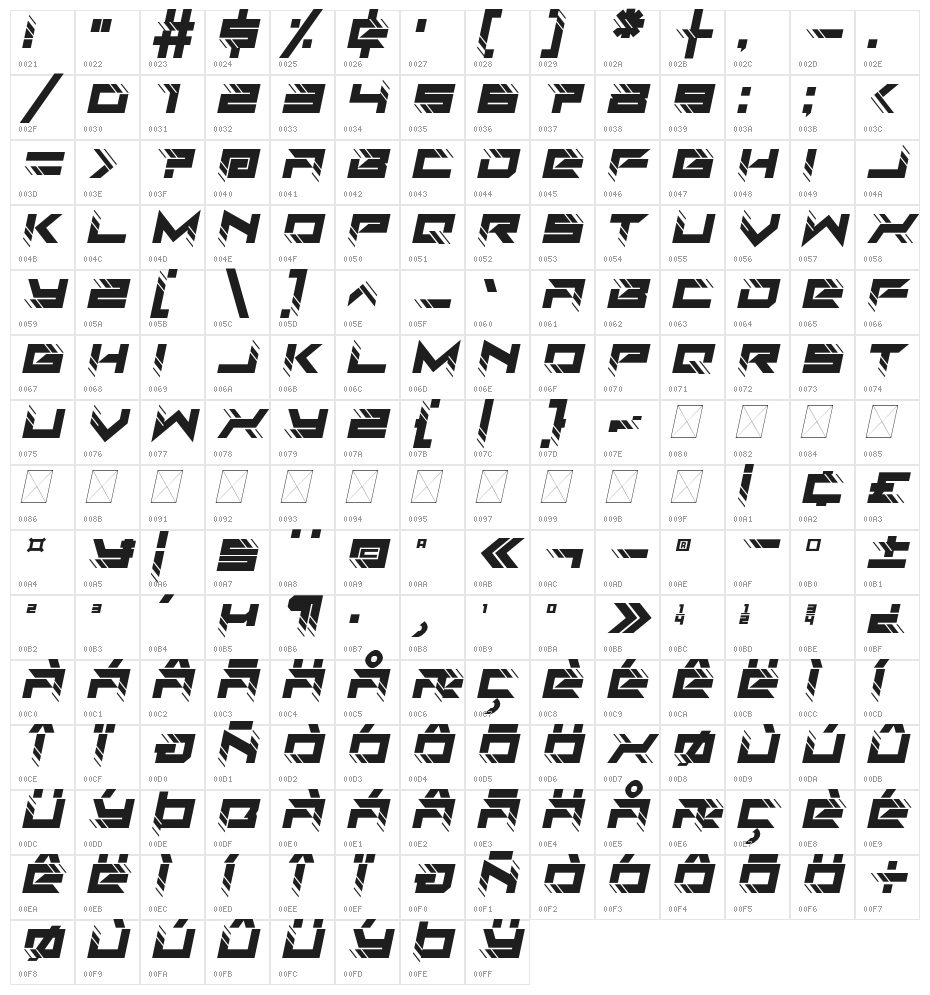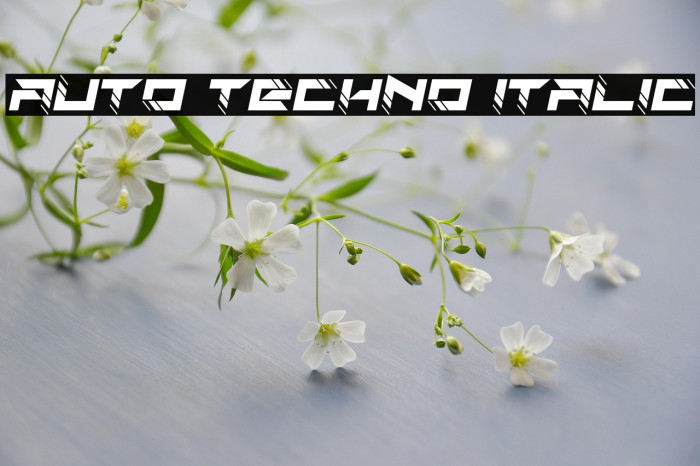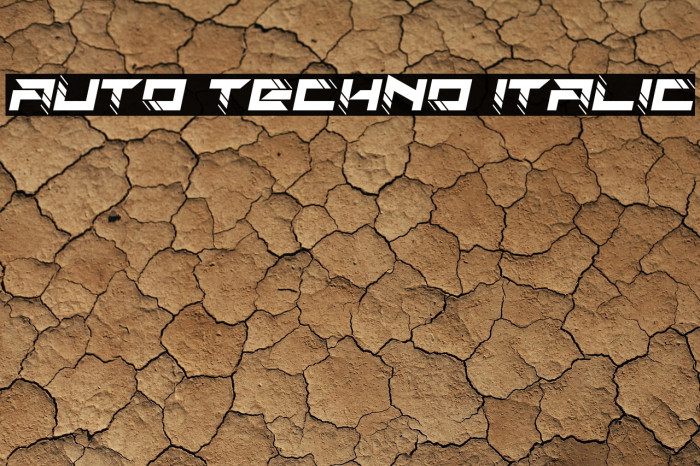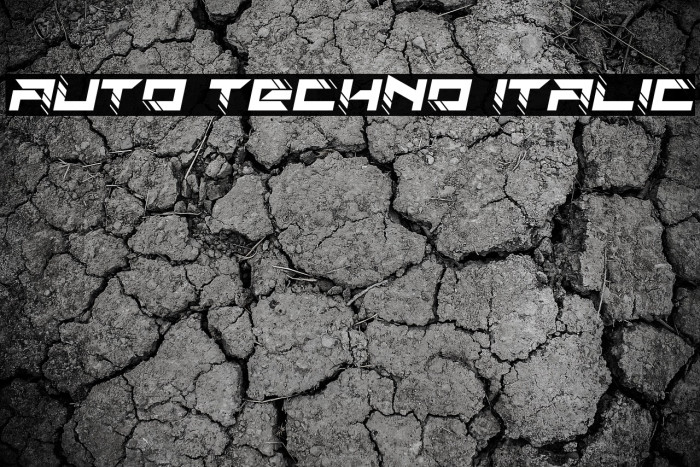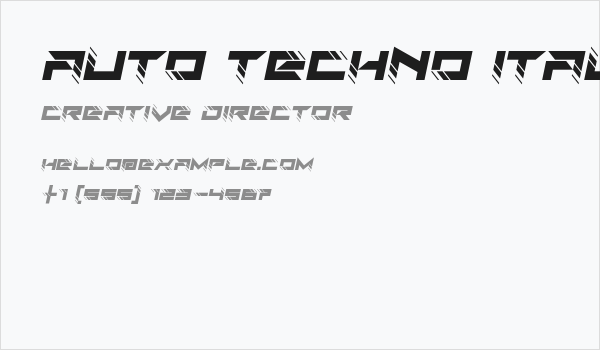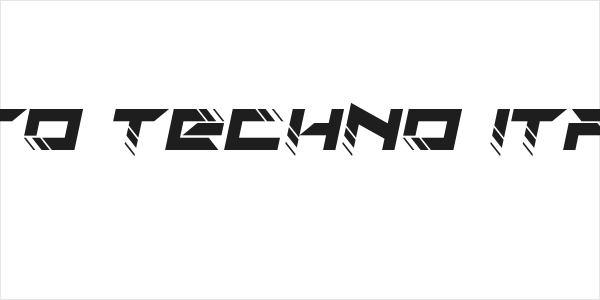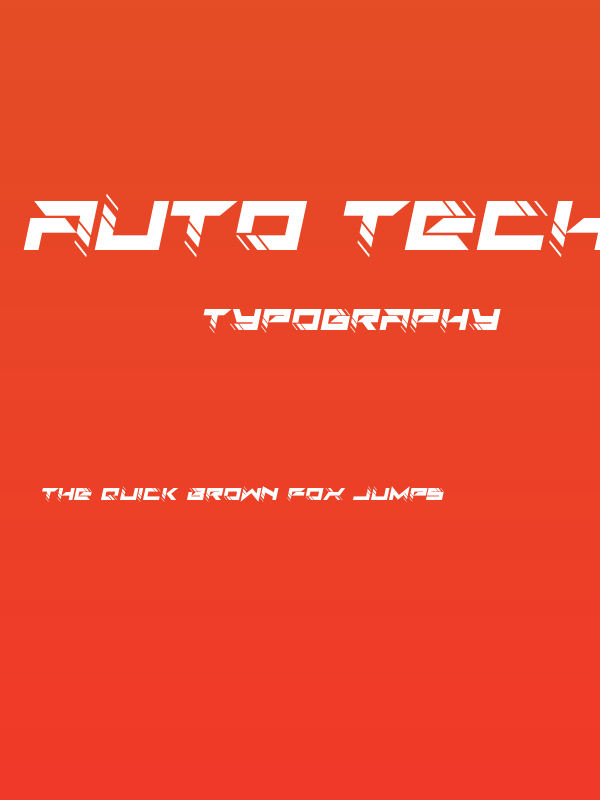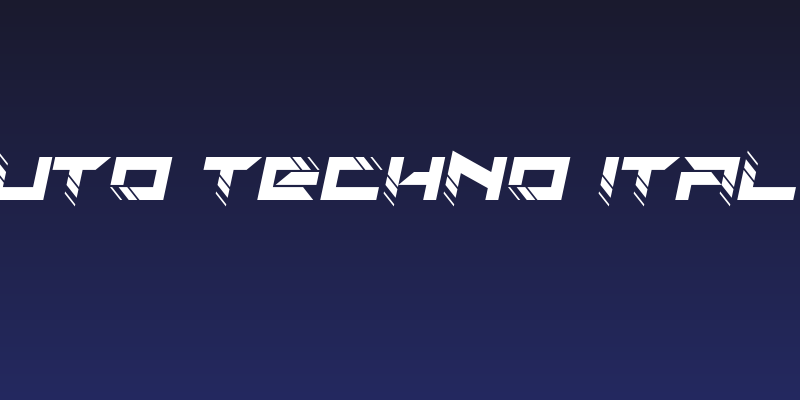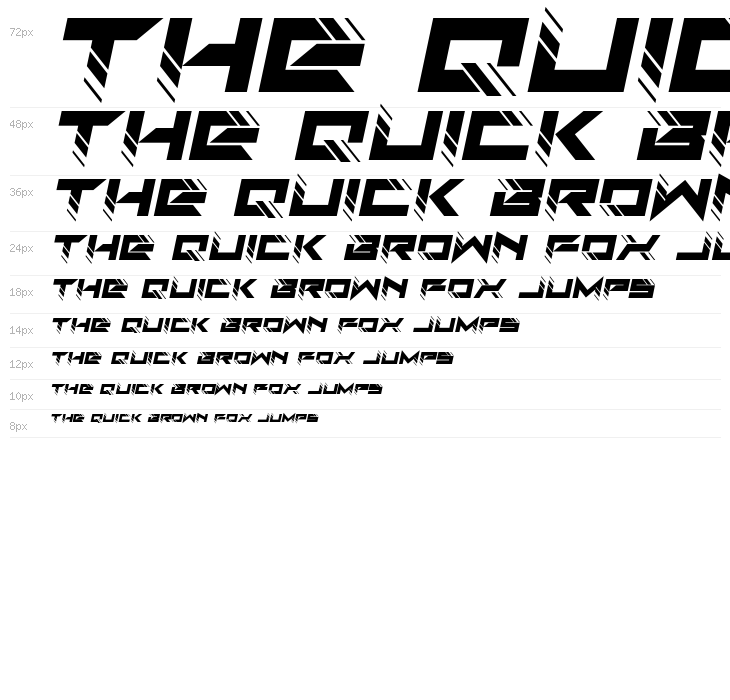
Auto Techno Italic Font
Auto Techno Italic Description
This font features a futuristic and techno-inspired design, characterized by its bold, angular shapes and dynamic slanted orientation. The characters are constructed with sharp edges and geometric forms, giving it a high-tech and modern appearance. The use of diagonal lines and cut-out sections within the letters adds a sense of movement and speed, making it ideal for projects that require a cutting-edge and innovative look. The font's structure is consistent across uppercase, lowercase, numbers, and special characters, maintaining a cohesive and striking visual impact.
| Proposed Projects | Ideal for technology branding, video game titles, sci-fi movie posters, and digital interfaces. |